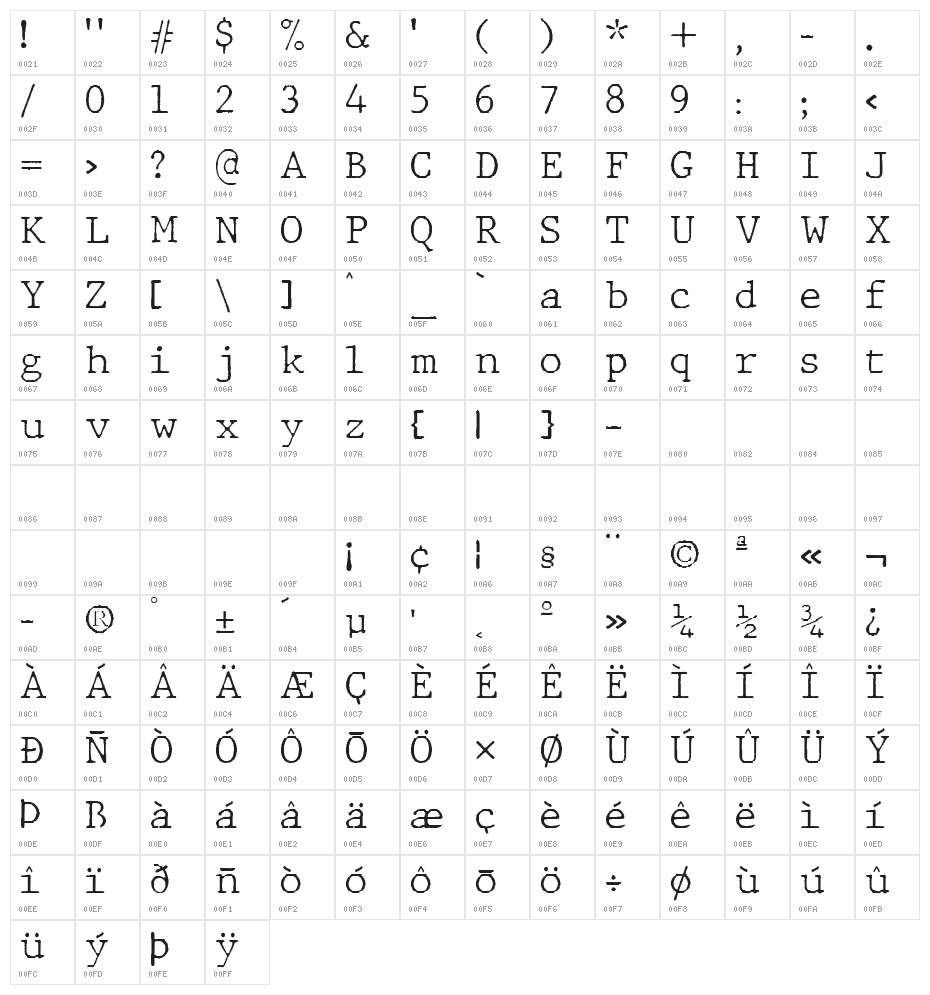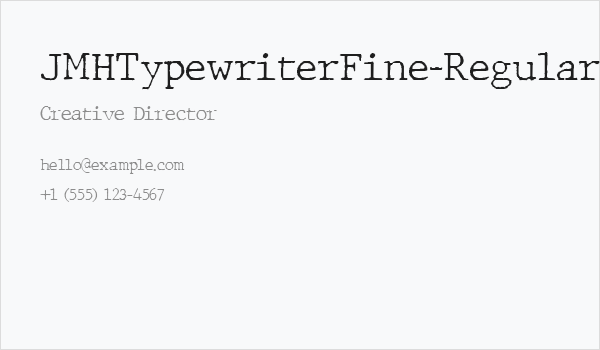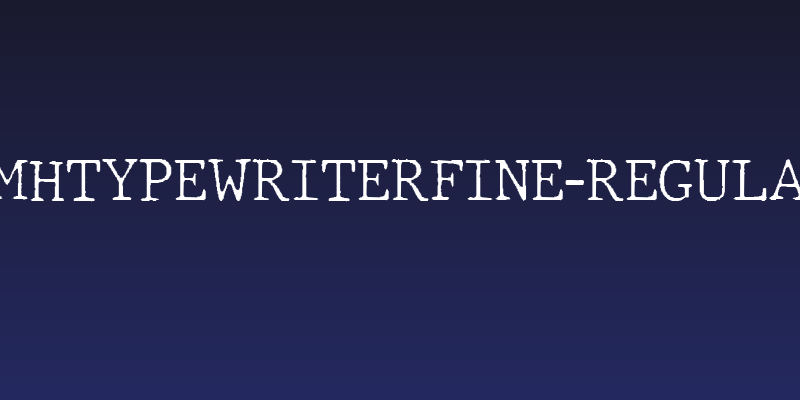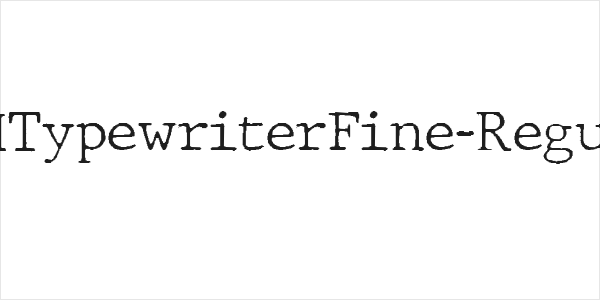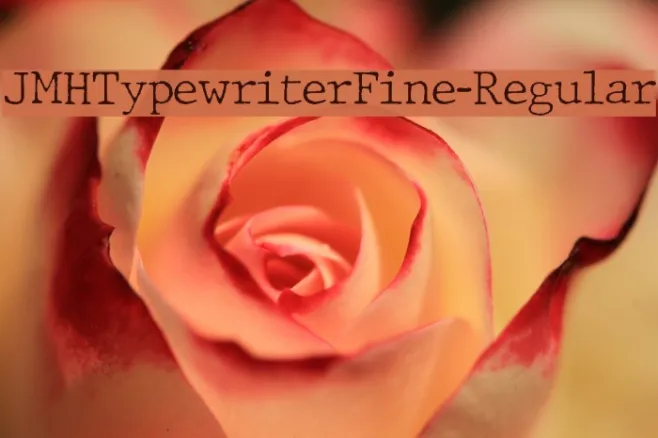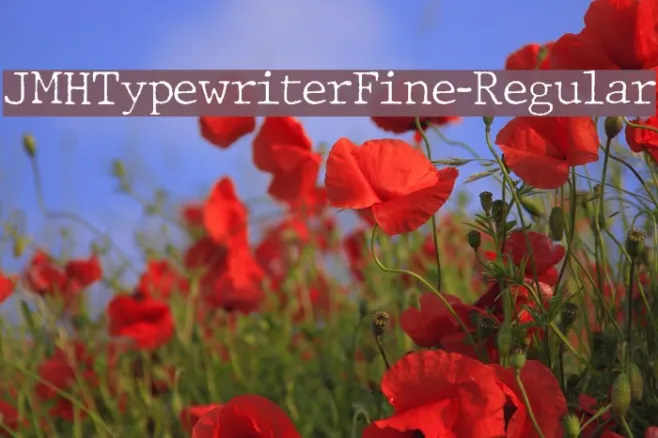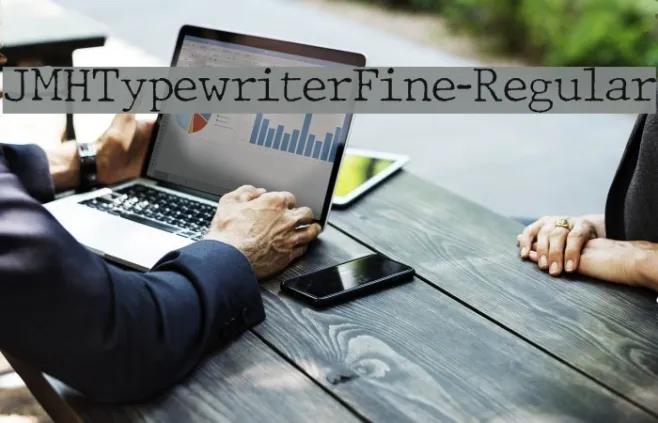
JMHTypewriterFine-Regular Font
JMHTypewriterFine-Regular Description
This typeface exudes a classic typewriter aesthetic, characterized by its monospaced letterforms and distinct serifs. Each character is evenly spaced, reminiscent of traditional typewriter output, providing a nostalgic and mechanical feel. The strokes are consistent, with a medium contrast that enhances readability while maintaining the vintage charm. The uppercase and lowercase letters are well-proportioned, and the numerals align perfectly with the overall style. Special characters are clearly defined, adding to the font's versatility. This font is ideal for projects that require a retro or mechanical touch, such as vintage-themed designs, typewriter simulations, or any creative work that benefits from a classic typewriter look.
| Proposed Projects | Ideal for vintage-themed designs, typewriter simulations, and retro-inspired creative projects. |